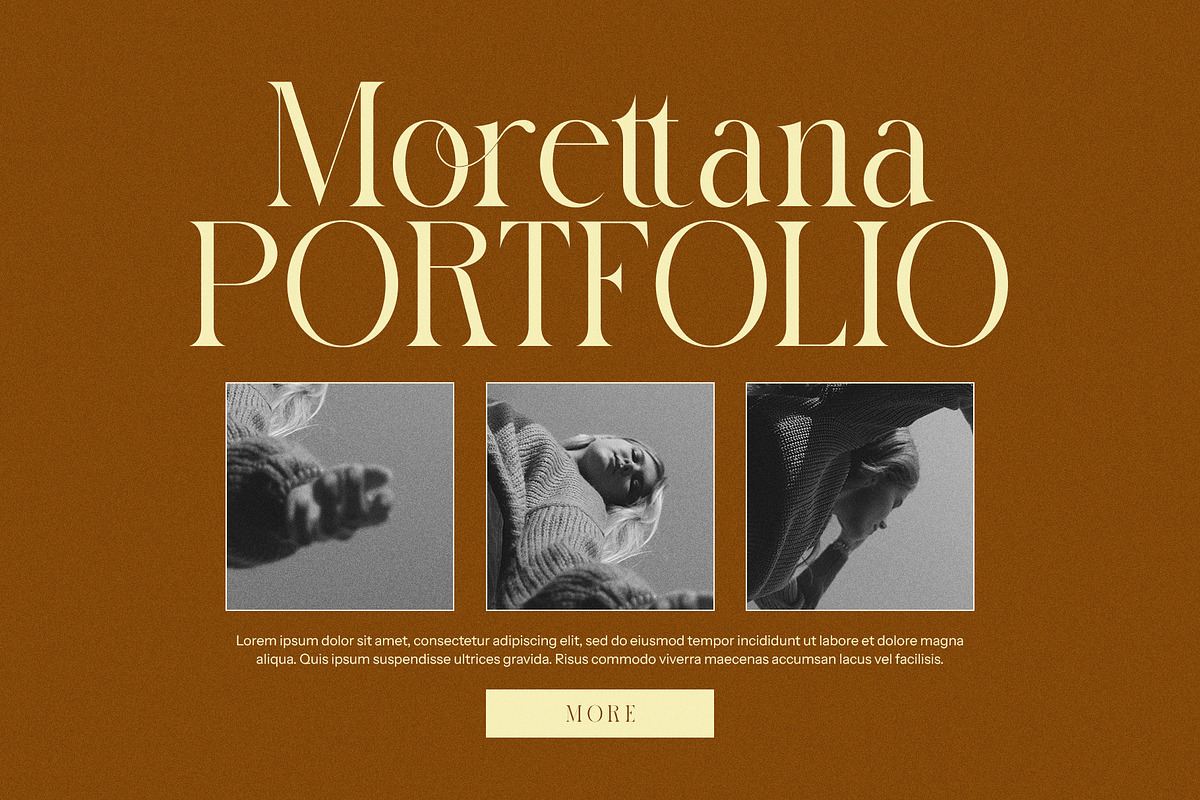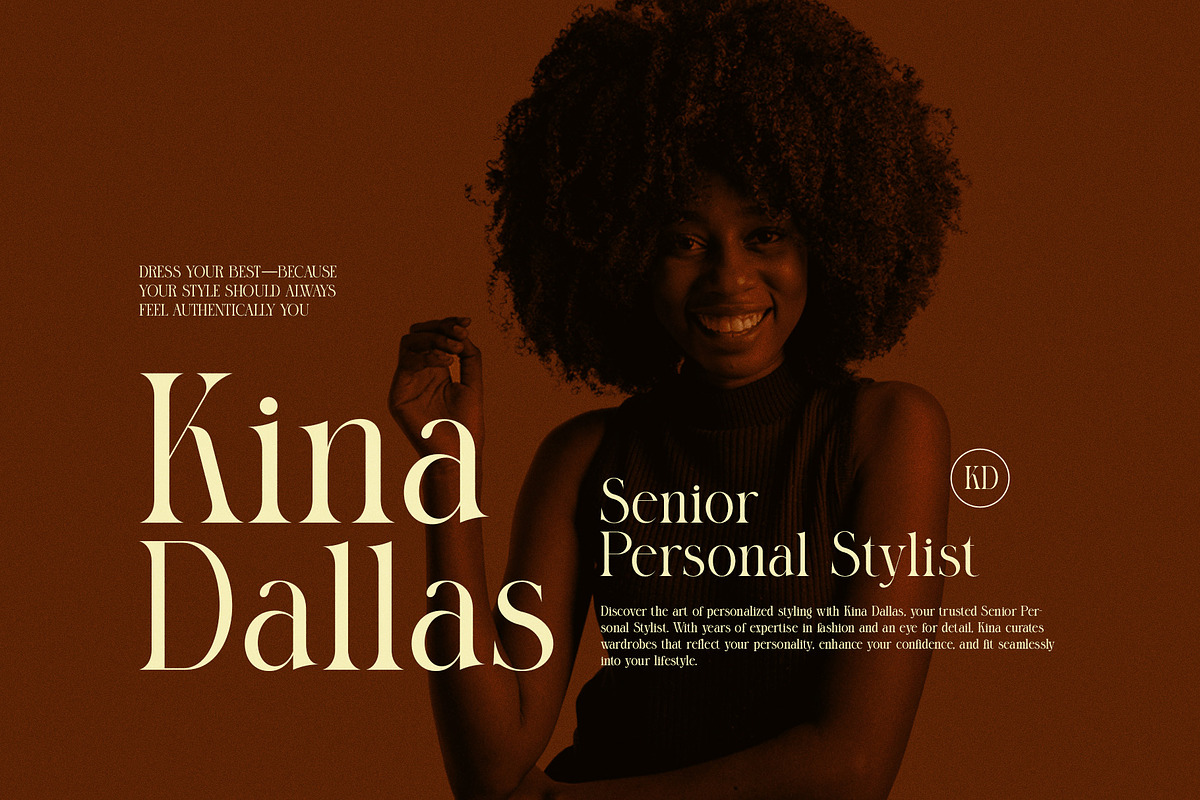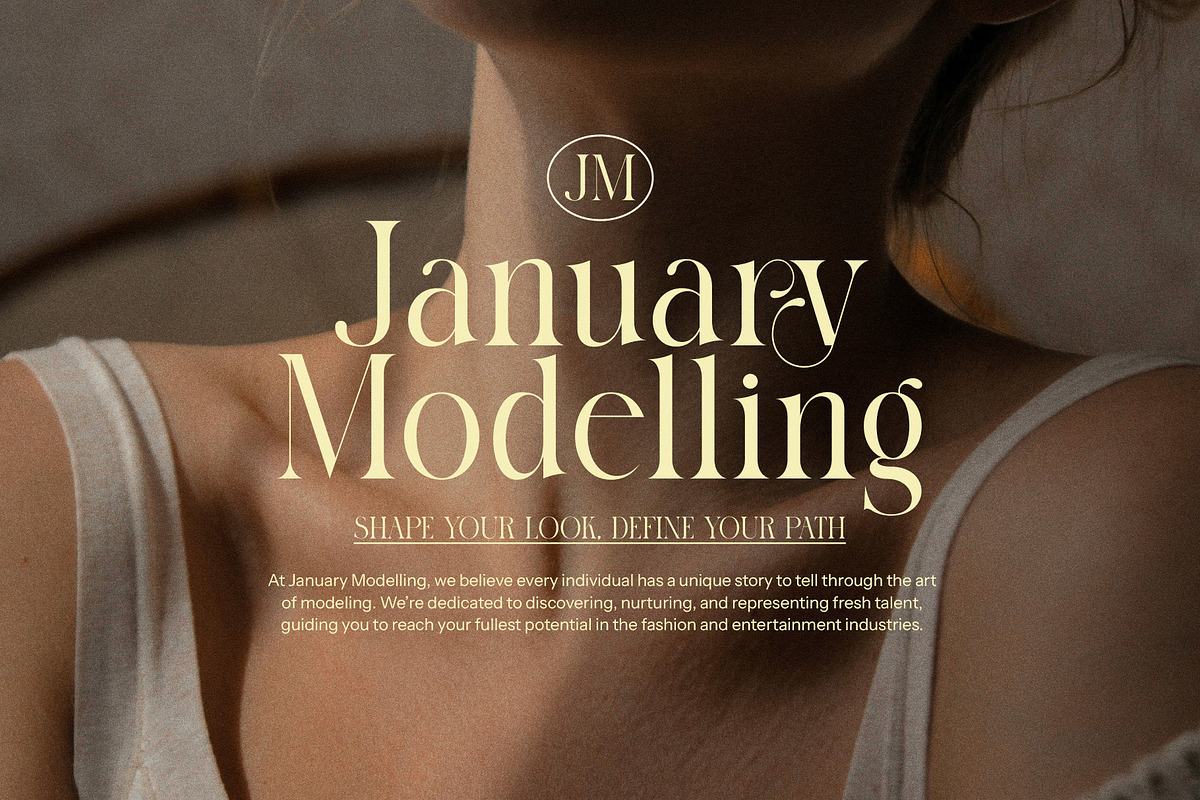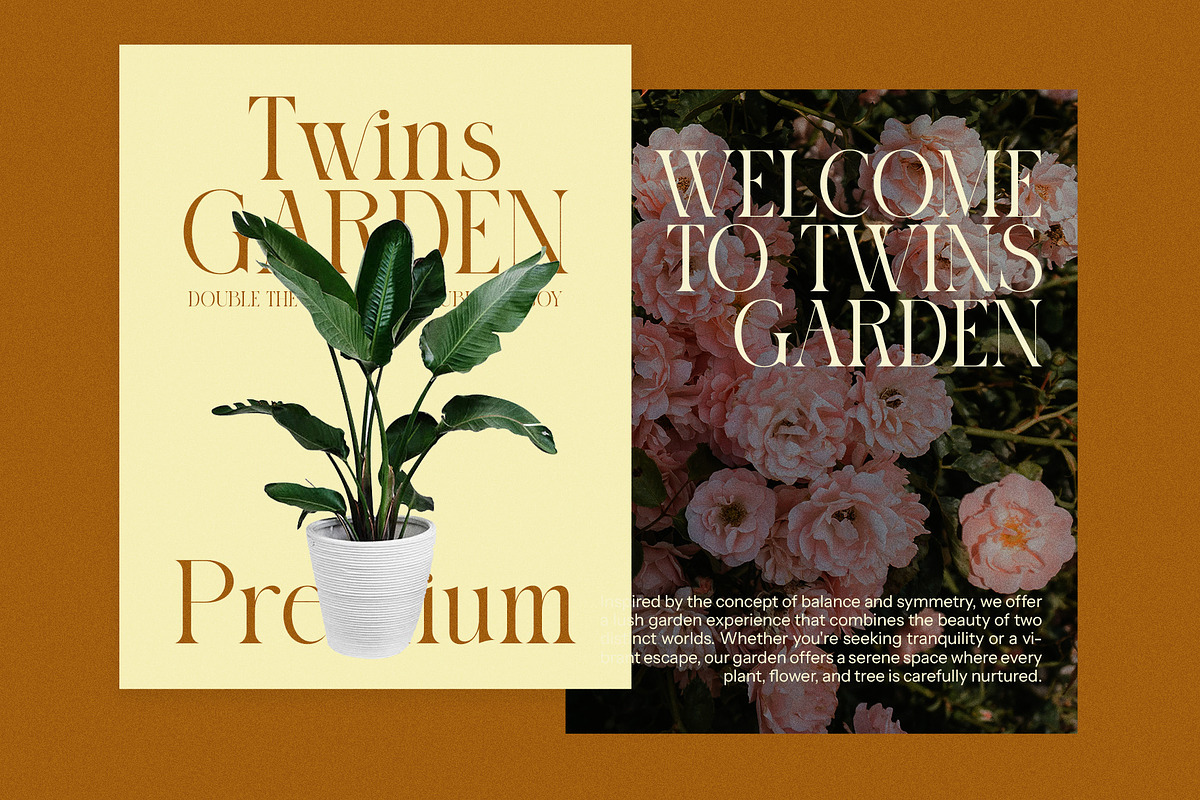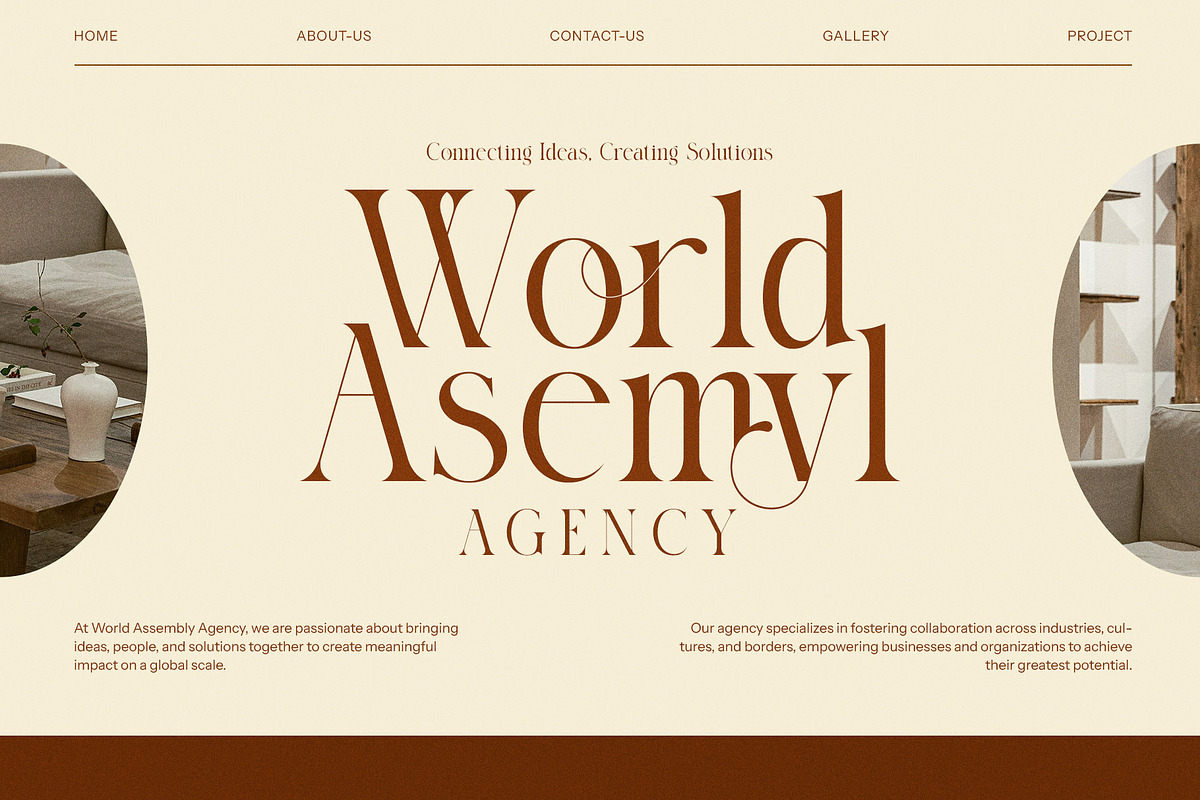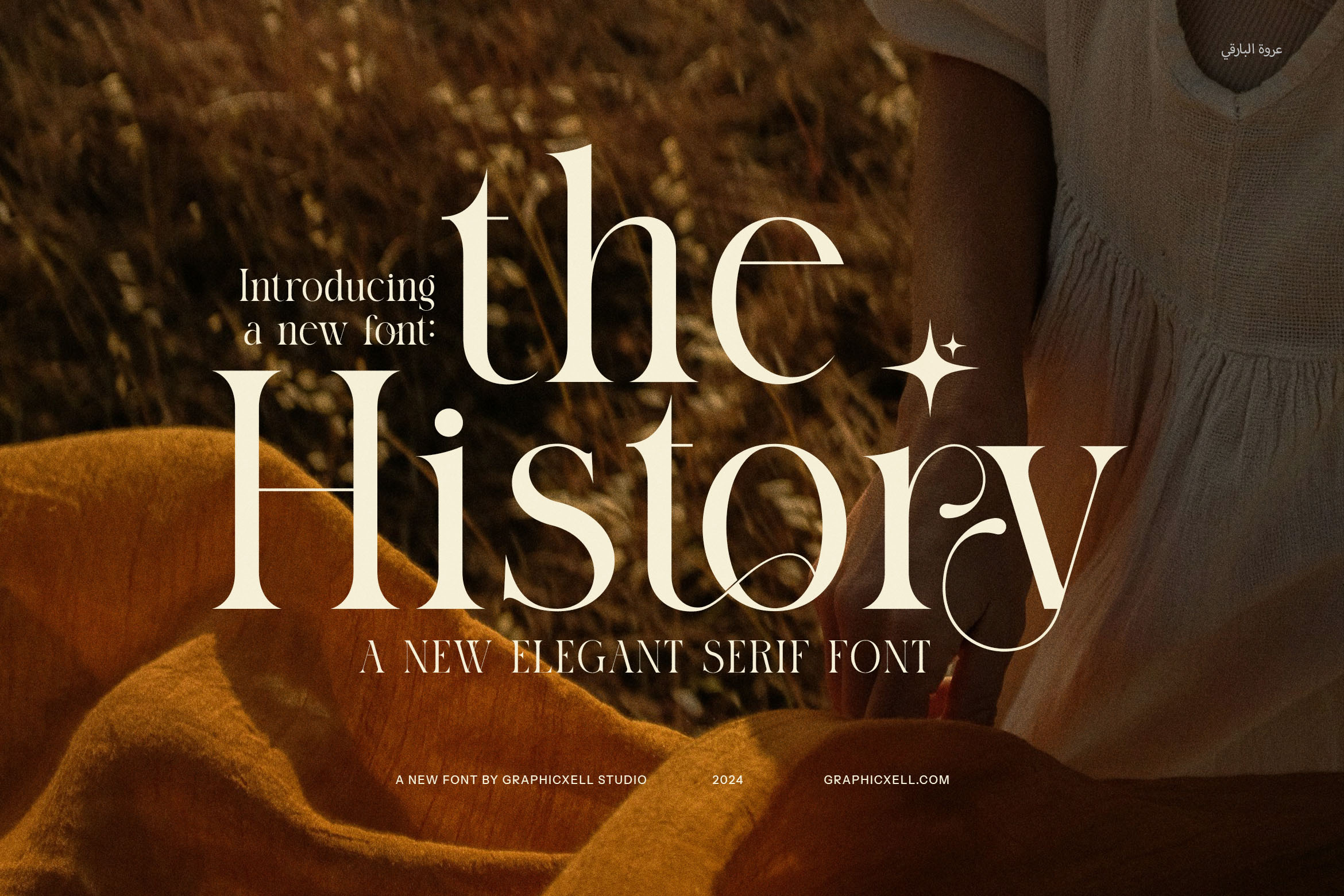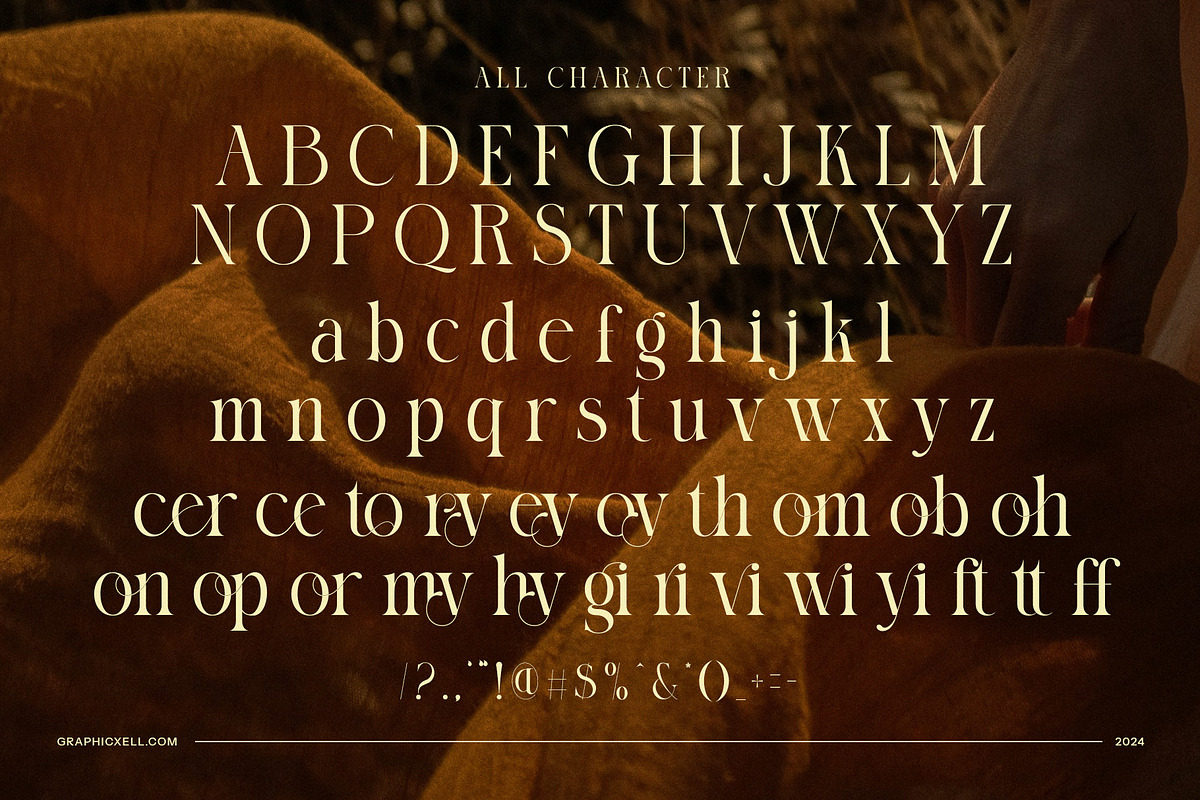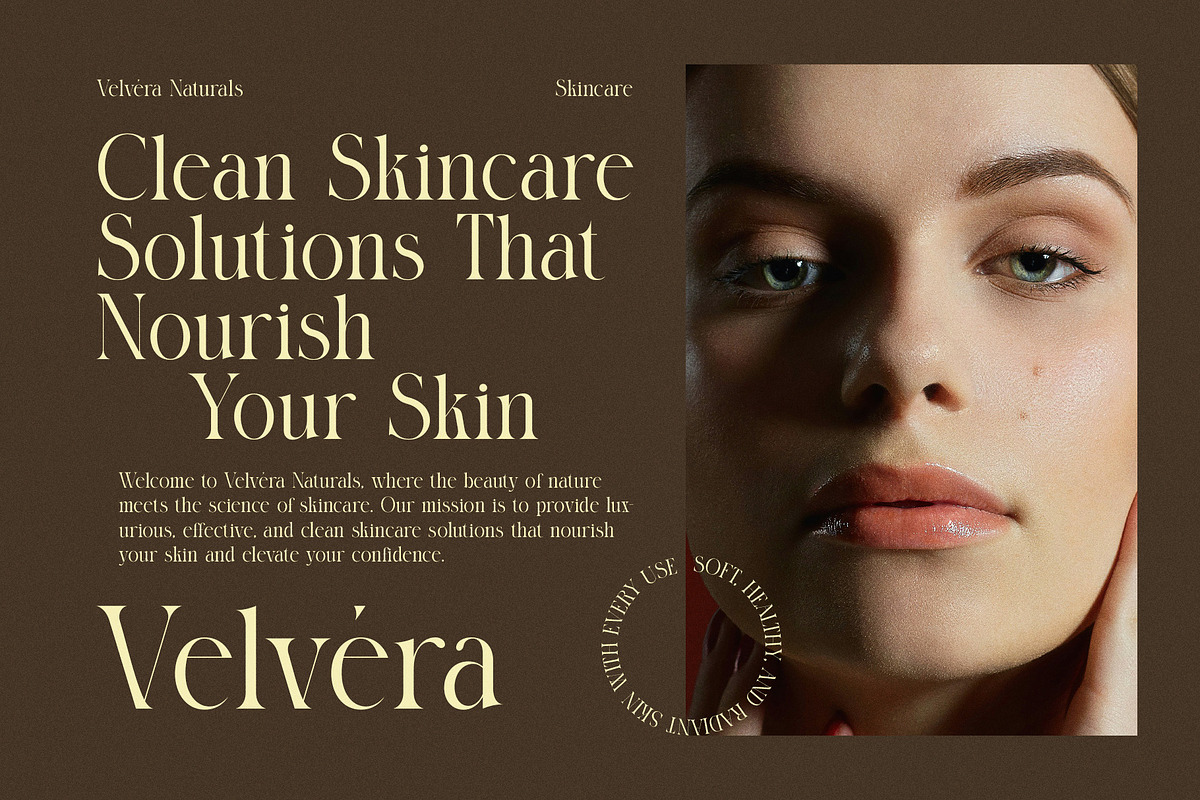
History Modern Serif Font
Introducing History Modern Serif Font, a sophisticated typeface that beautifully bridges timeless design with contemporary aesthetics. This elegant serif font is meticulously crafted with unique shapes, harmonious proportions, and intricate details that elevate any creative project. Its graceful ligatures and alternative calligraphy-inspired characters bring a refined touch of artistry, making it ideal for those seeking a bold yet polished statement in their designs.
Perfect for branding, History Modern shines in creating logos that resonate with luxury and professionalism. It adapts seamlessly to editorial layouts, magazine spreads, and stylish websites, offering exceptional versatility across print and digital platforms. From high-end boutiques to culinary packaging, this font enhances the visual appeal of products and advertisements alike.
The font’s clean yet expressive lines ensure excellent readability while maintaining a modern and dynamic personality. Whether you’re designing for fashion, beauty, lifestyle, or beyond, History Modern brings a sense of balance and sophistication to any medium. Its alternative characters and charming ligatures empower designers to explore endless customization, ensuring each project feels exclusive and memorable.
Infused with both tradition and innovation, History Modern Serif Font embodies elegance, creativity, and functionality. Elevate your design work with this remarkable typeface, perfect for crafting visual identities, product designs, or standout promotional materials. Let History Modern become the cornerstone of your creative toolkit and transform your projects into timeless masterpieces.